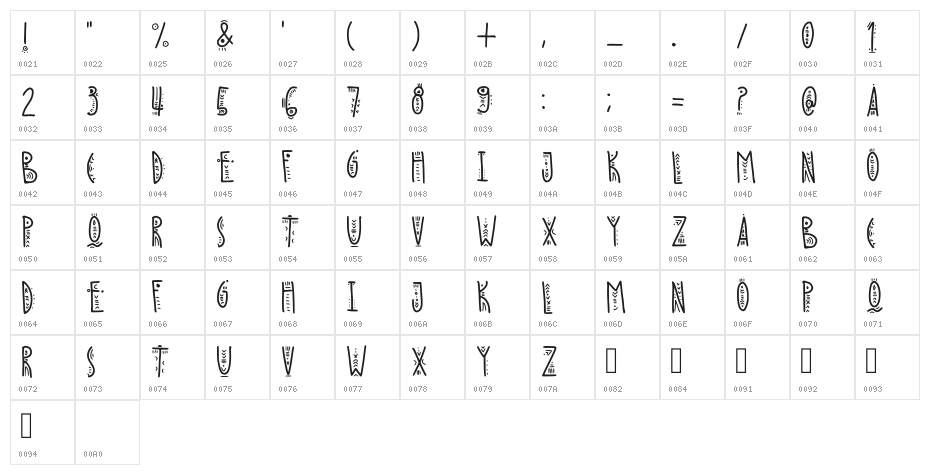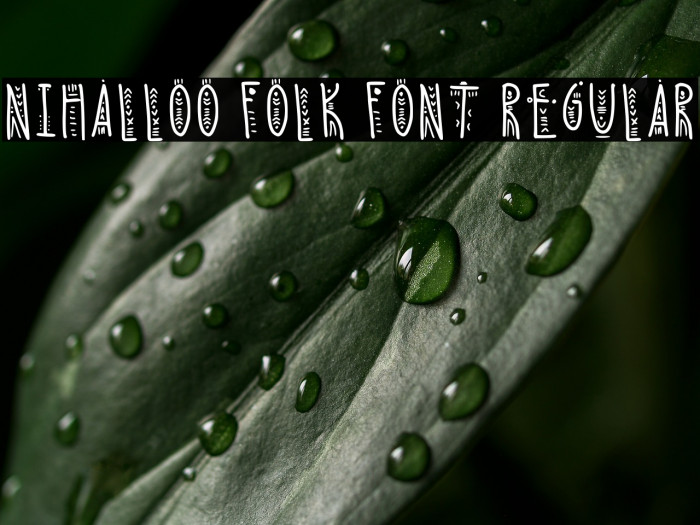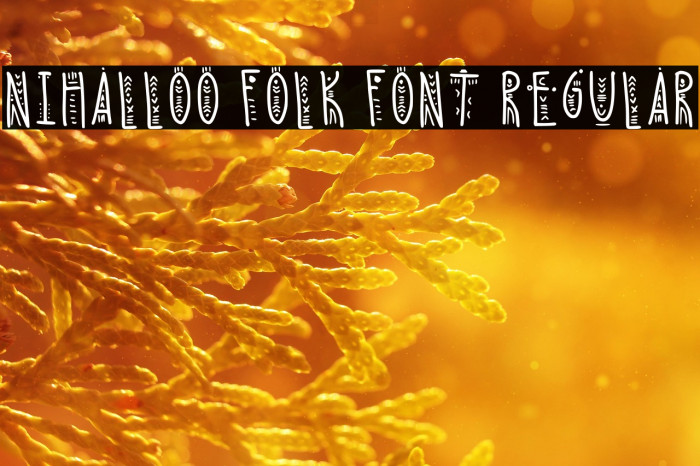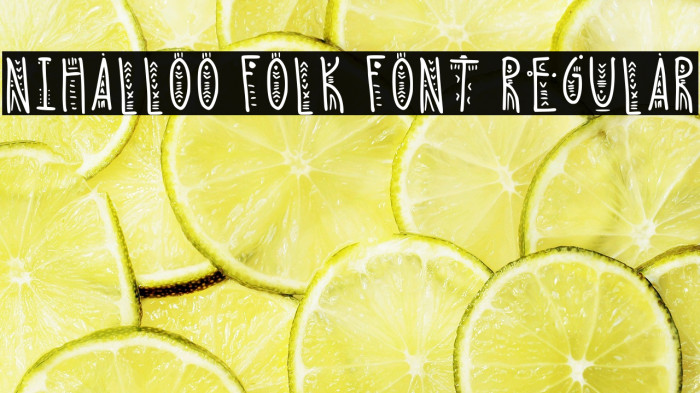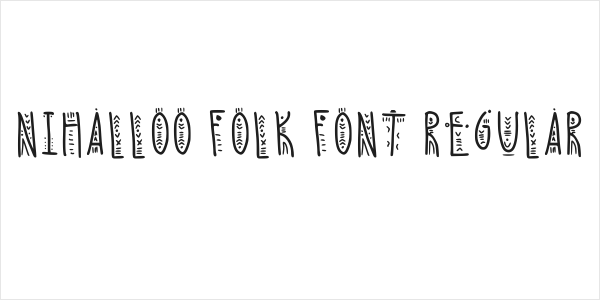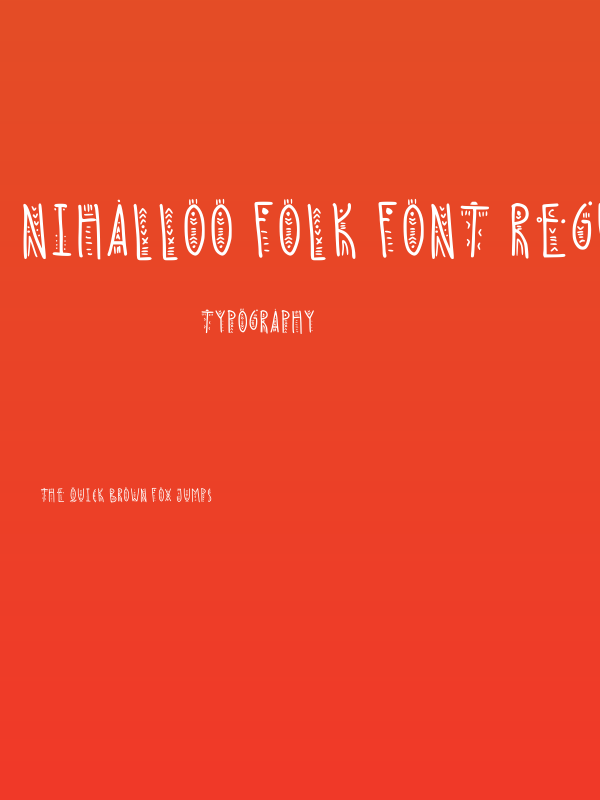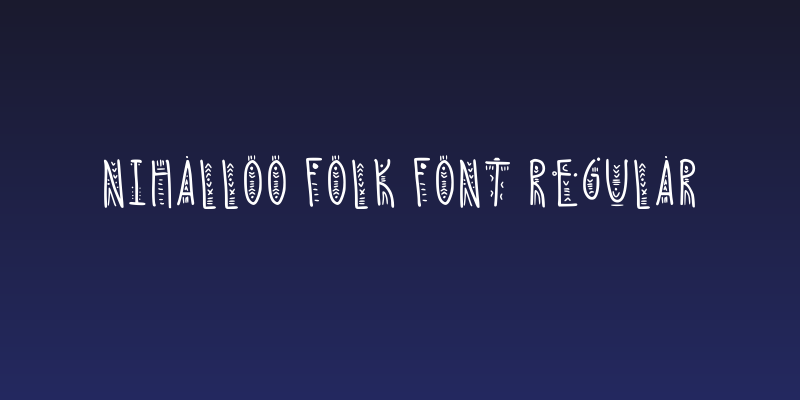
Nihalloo Folk Font Regular Font
Nihalloo Folk Font Regular Description
This font features a unique, decorative style with intricate patterns and embellishments within each character. The uppercase and lowercase letters are adorned with dots, lines, and various geometric shapes, giving it a handcrafted, artistic appearance. The numerals and special characters follow the same decorative theme, ensuring consistency throughout the typeface. The overall design is playful and visually engaging, making it suitable for creative and expressive projects. Its distinctiveness lies in the combination of traditional letterforms with modern, artistic elements, creating a font that stands out in any design.
| Use Case | Headlines, Logos, Artistic projects |
| Proposed Projects | Ideal for posters, invitations, branding, and any project requiring a creative and artistic touch. |